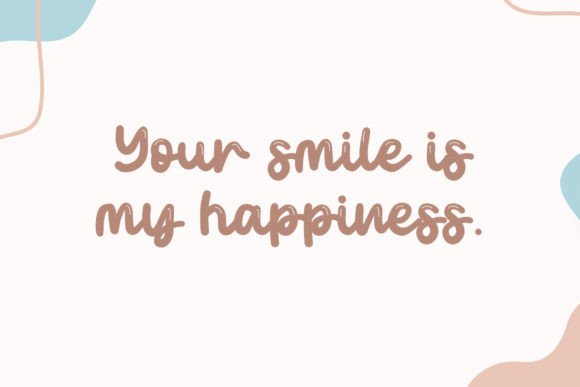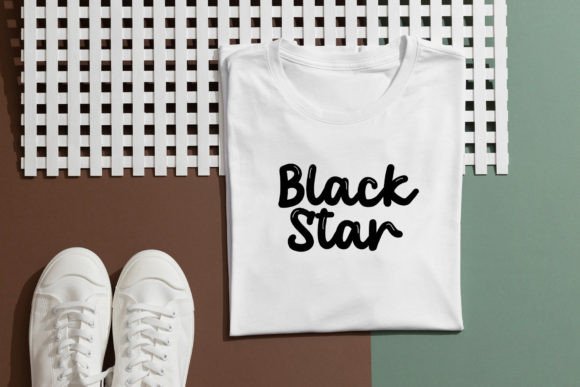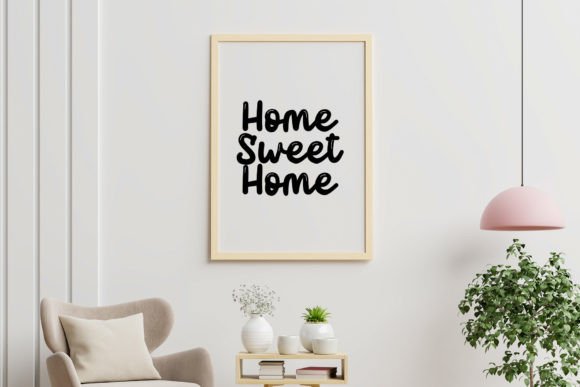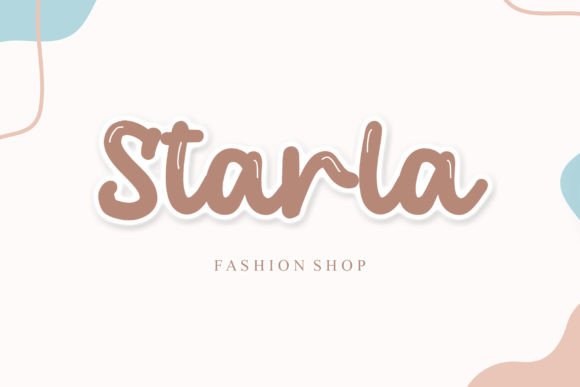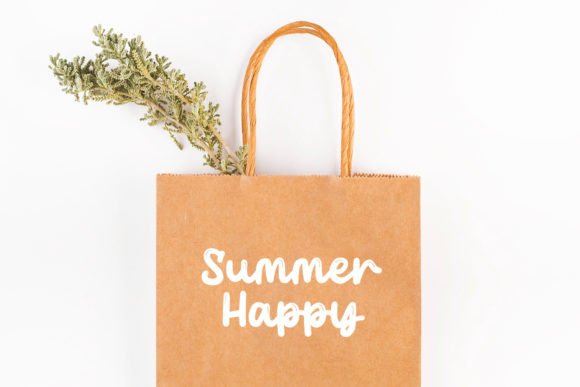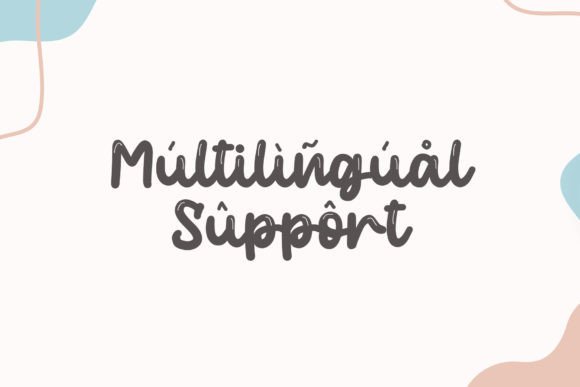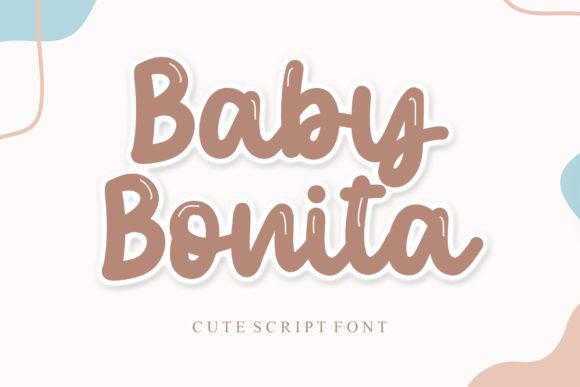
Baby Bonita Font: The Playful and Cute Handwritten Font for Every Occasion
Are you a designer, crafter, or DIY enthusiast looking for a font that can add a touch of playfulness and cuteness to your projects? Look no further than the Baby Bonita font! This handwritten font is perfect for a variety of uses, from crafts and digital design to presentations and greeting cards. In this article, we’ll explore the features and benefits of the Baby Bonita font, and why it’s sure to become your go-to font for any occasion.
What is Baby Bonita Font?
Baby Bonita is a playful and cute handwritten font that is designed to bring a smile to your face. Its unique and charming style makes it perfect for a wide range of projects, from creative crafts to professional designs. The font is highly versatile and can be used for both personal and commercial projects, making it a great addition to any designer’s or crafter’s toolkit.
Key Features of Baby Bonita Font
So, what makes Baby Bonita font so special? Here are some of its key features:
- Playful and Cute: Baby Bonita font has a playful and cute style that is sure to capture the attention of your audience. Its unique and charming design makes it perfect for projects that require a touch of whimsy and fun.
- Handwritten: The font has a handwritten style that gives it a personal and friendly feel. It’s perfect for projects that require a human touch, such as greeting cards, invitations, and DIY crafts.
- Highly Versatile: Baby Bonita font can be used for a wide range of projects, from crafts and digital design to presentations and greeting cards. Its versatility makes it a great addition to any designer’s or crafter’s toolkit.
- Easily Readable: The font is highly legible, making it easy to read even at small sizes. This makes it perfect for projects that require a lot of text, such as presentations and digital designs.
Uses of Baby Bonita Font
Baby Bonita font can be used for a wide range of projects, including:
- Crafts: The font is perfect for crafters who want to add a touch of playfulness and cuteness to their projects. Use it to create handmade cards, gift tags, and other DIY crafts.
- Digital Design: Baby Bonita font is great for digital designers who want to add a personal touch to their designs. Use it to create social media graphics, blog posts, and other digital content.
- Presentations: The font is perfect for presentations that require a touch of whimsy and fun. Use it to create engaging and interactive presentations that capture the attention of your audience.
- Greeting Cards: Baby Bonita font is great for creating handmade greeting cards that are sure to impress. Use it to create birthday cards, holiday cards, and other special occasion cards.
Why Choose Baby Bonita Font?
So, why should you choose Baby Bonita font for your projects? Here are some reasons:
- Unique and Charming: The font has a unique and charming style that is sure to capture the attention of your audience.
- Highly Versatile: Baby Bonita font can be used for a wide range of projects, making it a great addition to any designer’s or crafter’s toolkit.
- Easily Readable: The font is highly legible, making it easy to read even at small sizes.